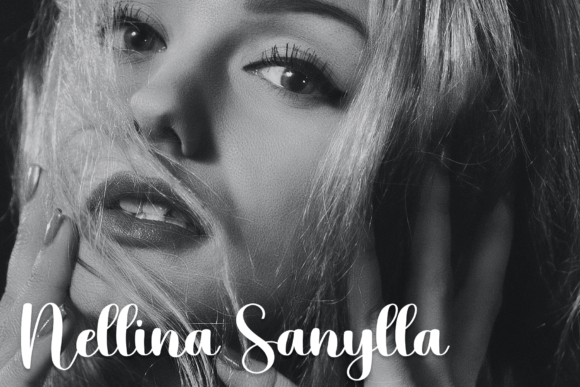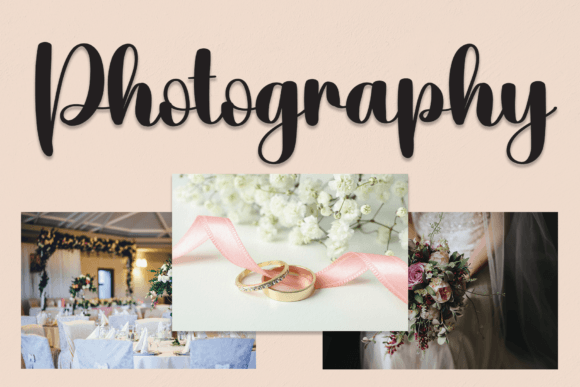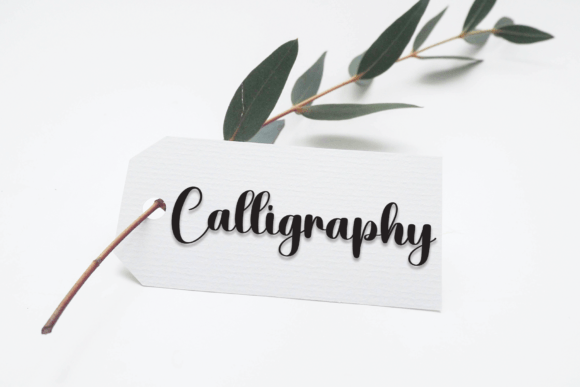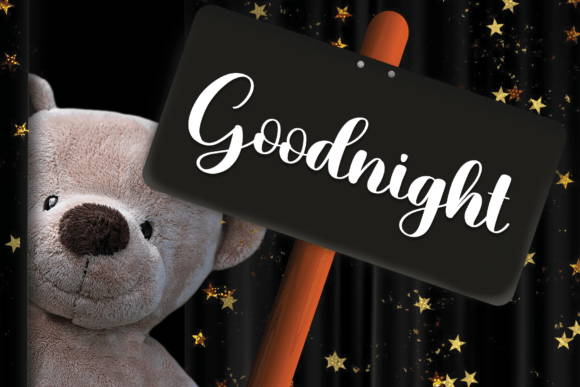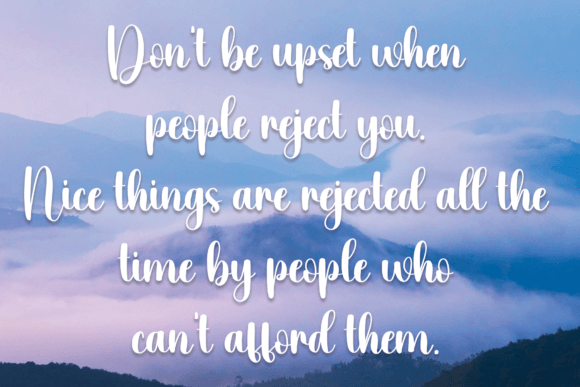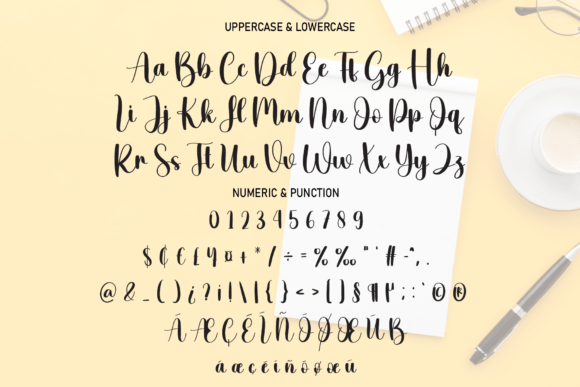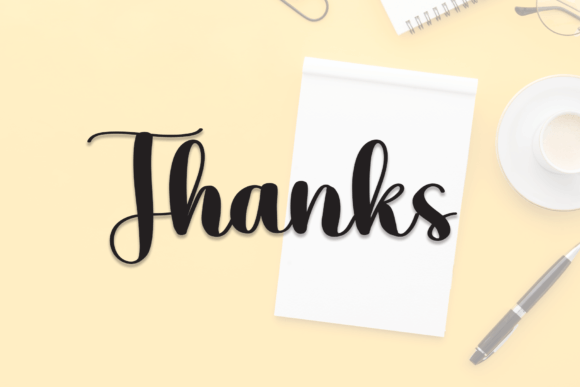
Homework Font
**Homework: A Versatile Handwritten Font for Your Creative Projects**
Homework is a font that offers versatility and creativity, making it an excellent choice for a wide range of design projects. Whether you’re creating wall displays, wedding invitations, social media post logos, advertisements, product packaging, labels, photography watermarks, invitations, stationery, or any other project that requires a handwritten touch, Homework has you covered.
This font’s distinct style and creative flair make it perfect for various design contexts. Its handwritten characters add a personal and artistic touch to your projects, making them stand out and resonate with your audience.
Homework adapts seamlessly to different design requirements. Whether you need a logo that captures your brand’s essence, wedding invitations that exude elegance, or social media posts that engage your audience, this font brings a unique handwritten taste to your work.
In summary, Homework is a versatile font that empowers you to infuse creativity and a personal touch into your designs. Its handwritten style is perfect for adding warmth and authenticity to your projects. With Homework, your creative endeavors will shine with a distinct and artistic presence. Choose Homework, and let your designs inspire and connect with your audience on a personal level.